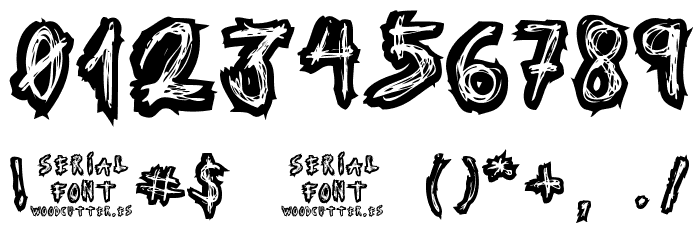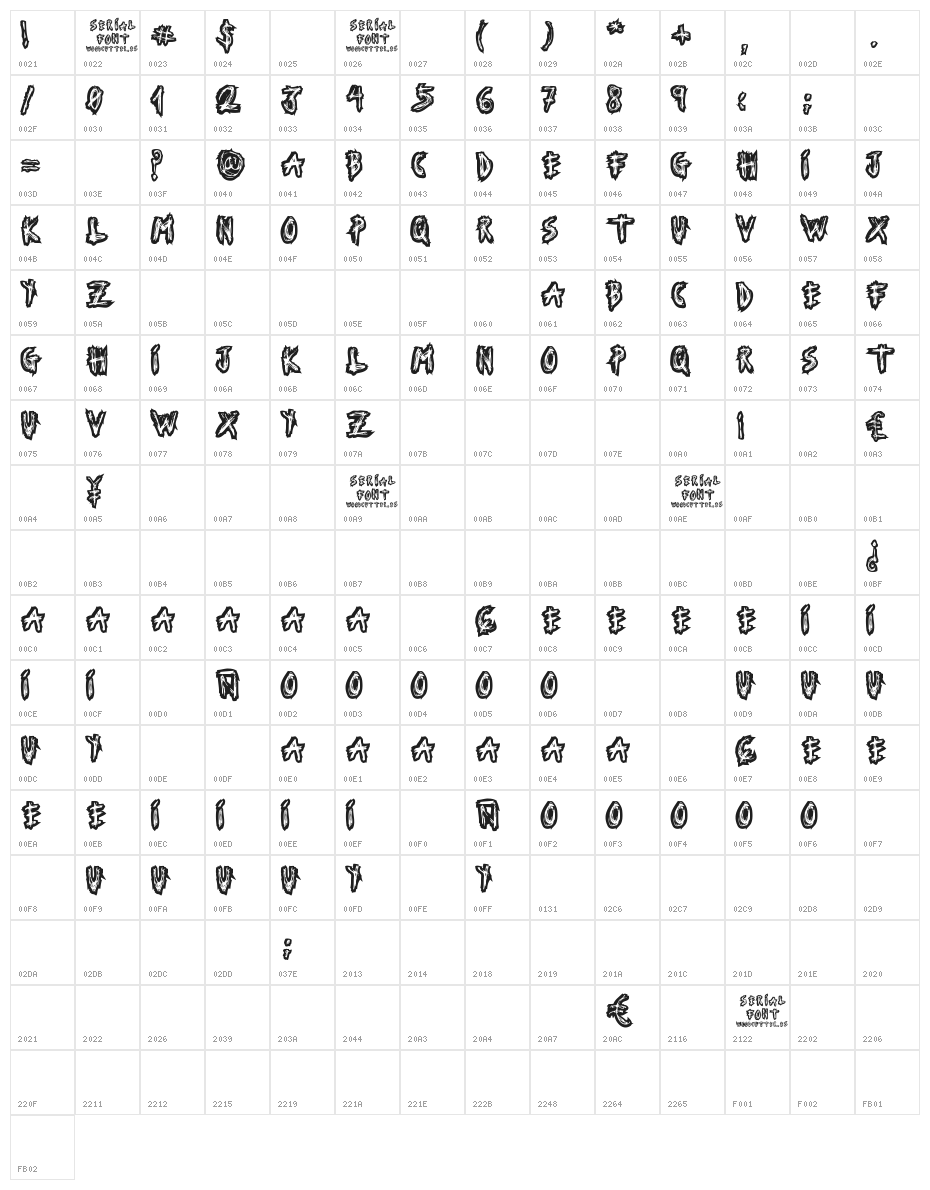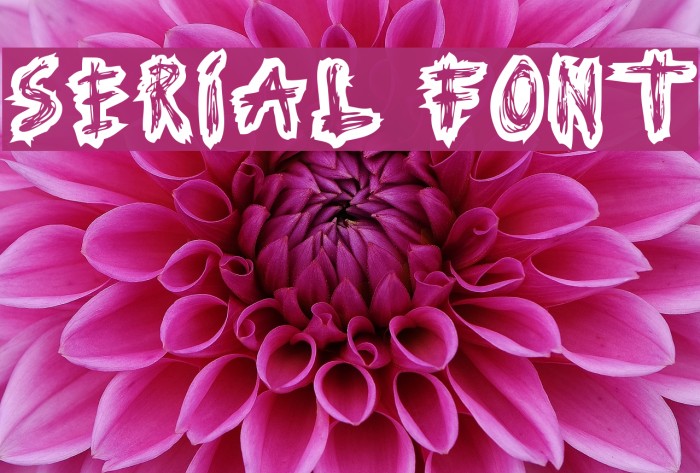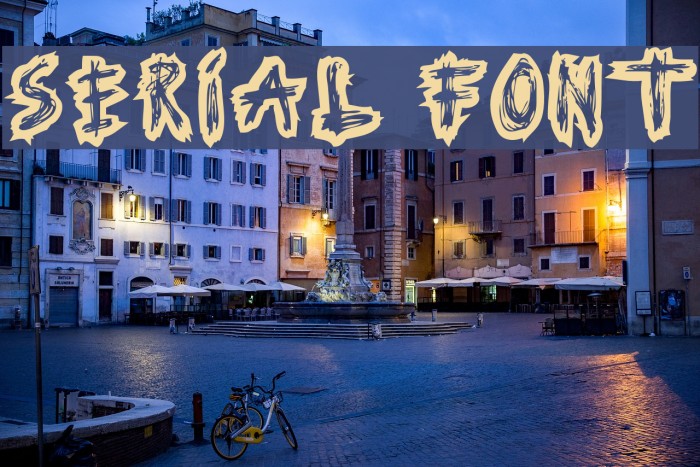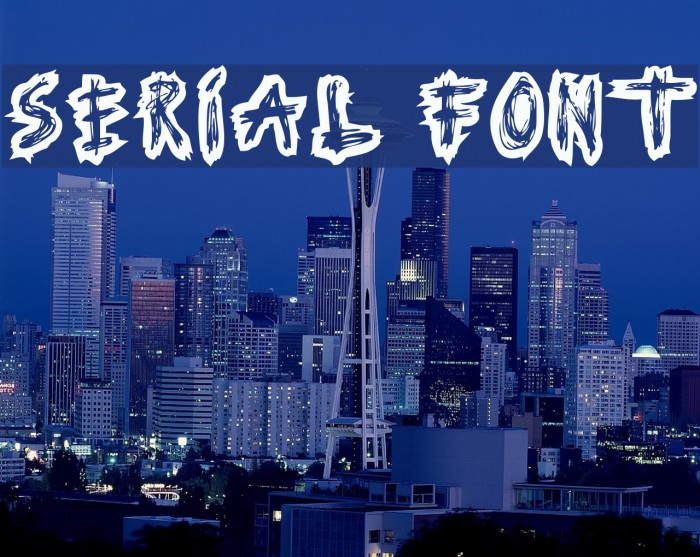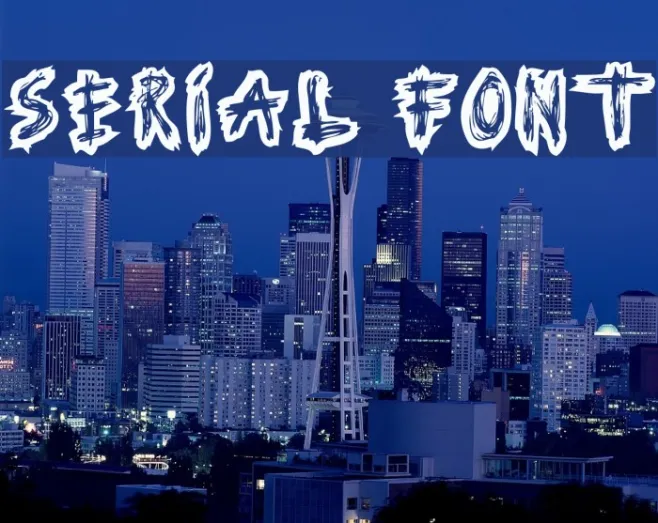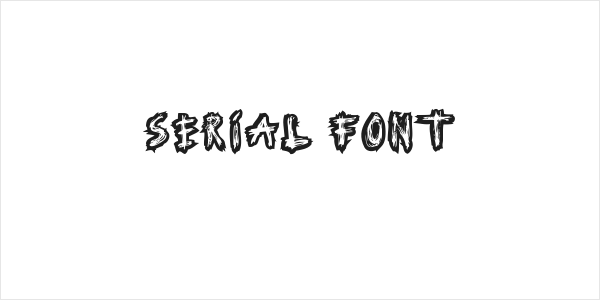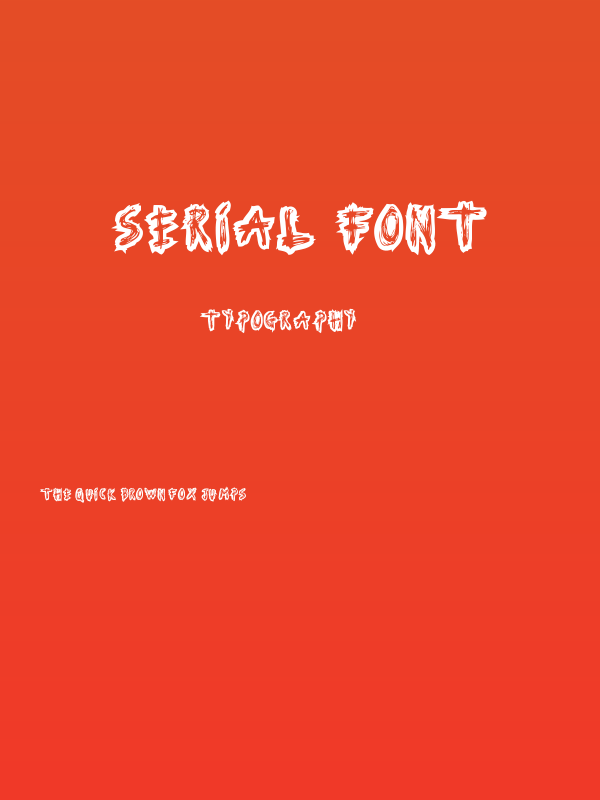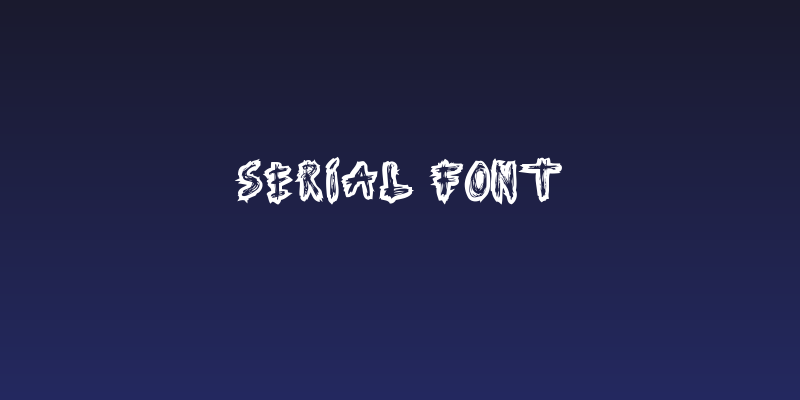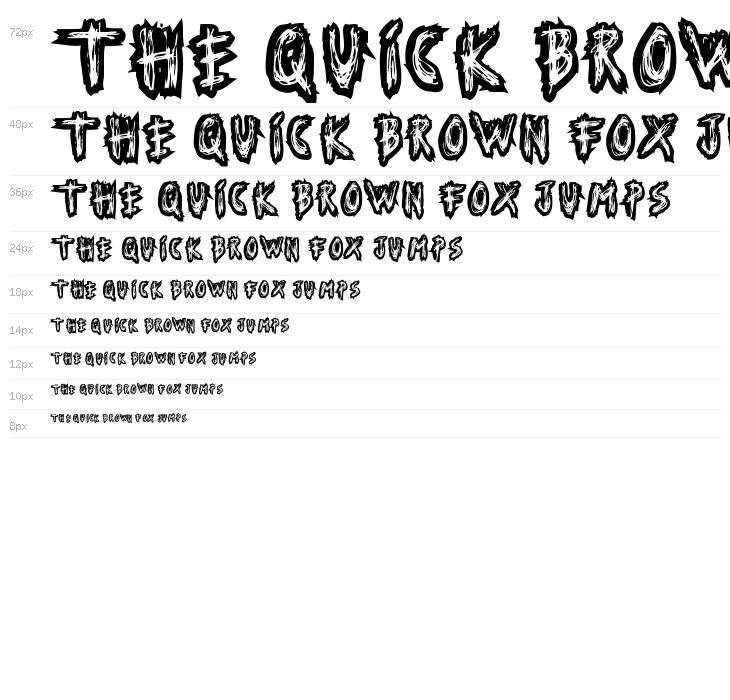
Serial Font Font
Serial Font Description
This font features a bold and aggressive style with jagged, rough edges that give it a chaotic and energetic appearance. The characters are heavily stylized, resembling a hand-drawn or graffiti-like aesthetic. Each letter and number is distinct, with exaggerated strokes and a sense of movement, making it stand out in any design. The font's unique texture and irregular shapes contribute to its dynamic and edgy feel, suitable for projects that require a strong visual impact.
| Overall Style | Modern, Edgy |
| Proposed Projects | Ideal for music album covers, extreme sports branding, streetwear designs, and event posters that require a bold and edgy look. |